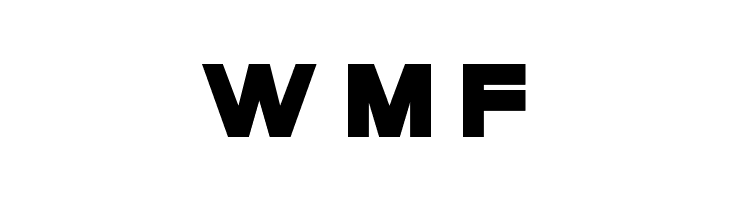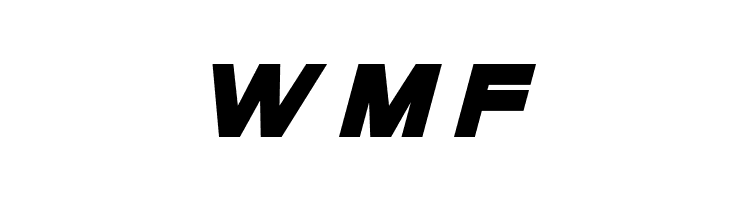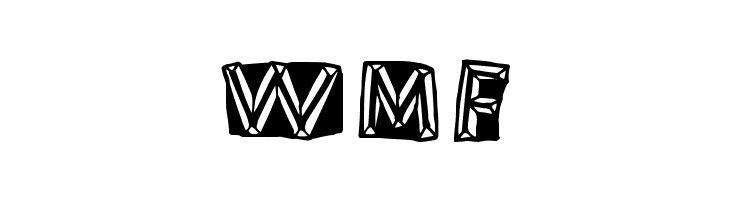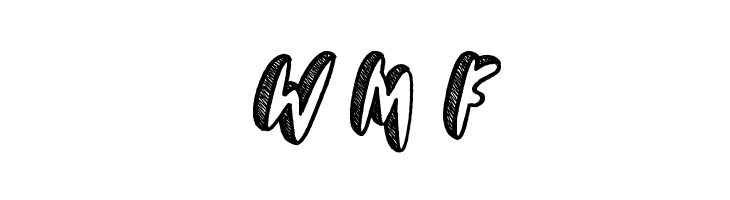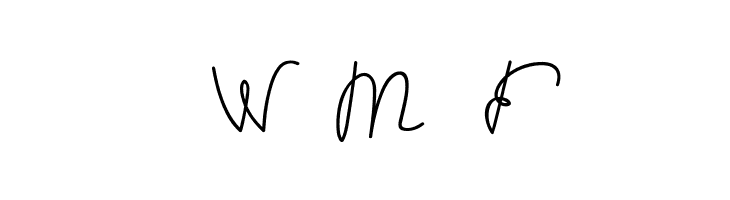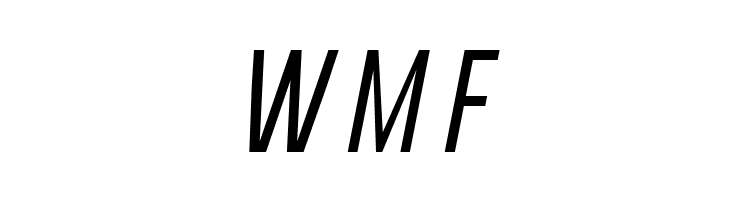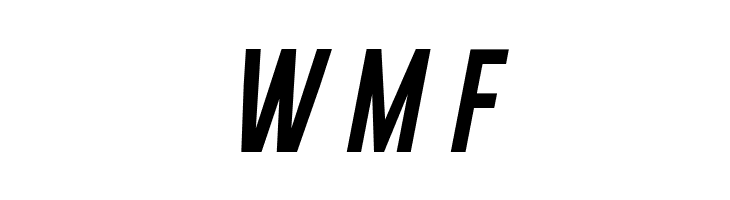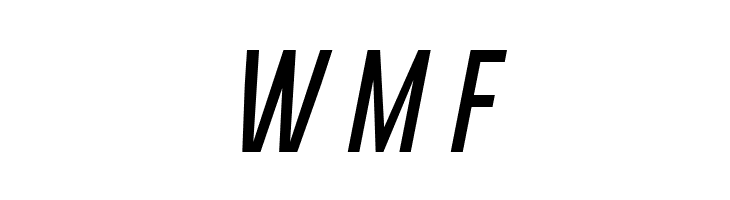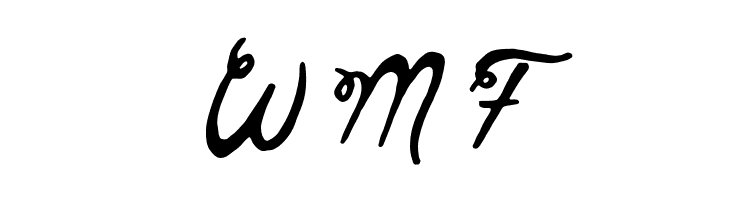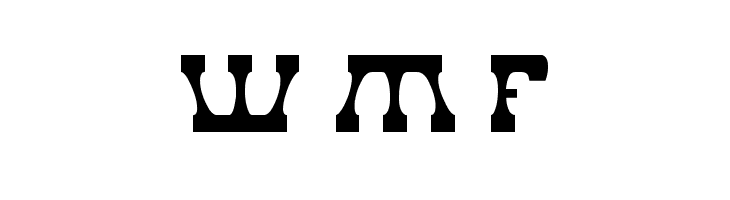
• Gobold High Bold Italic Italic
A bold, italic, and condensed font with a modern and dynamic style.
• Gobold High Italic Italic
A bold, italicized font with a dynamic and modern appearance.
• Gobold High Thin Italic Italic
A sleek, italic font with tall, narrow characters and high contrast, ideal for modern designs.
• Gobold Italic Italic
A bold, italic, and condensed font with a modern and dynamic style.
• Gobold Lowplus Italic Italic
A bold, italicized font with a modern, dynamic style and consistent stroke width.
• Gobold Thin Italic Italic
A sleek, modern, and italicized font with thin, condensed letterforms.
• Gobold Thin Light Italic Italic
A sleek, modern, and italicized font with thin, consistent strokes and a condensed form.
• Gobold Uplow Italic Italic
A bold, italic, and condensed font with a modern and dynamic style.
• God Hates Westboro
Bold, geometric sans-serif with blocky, high-impact uppercase letters.
• God Is Watching Us
A bold, industrial-style font with high contrast and angular edges.
• Godzilla MovieFont
• Gogol, Simone & Monroe
A bold, textured font with a distressed, grunge aesthetic.
• GoGoPosterPunch
A bold, geometric font with strong, impactful letterforms.
• GoGoPosterPunch
A bold, geometric font ideal for impactful headlines and modern designs.
• GoGoPosterPunch Bold
A bold, geometric font with strong, blocky letterforms.
• GoGoPosterPunch Bold Italic
A bold, italic, and geometric typeface with a modern flair.
• GoGoPosterPunch Italic
A bold, italic font with dynamic, angular lines and a modern, energetic style.
• GoGoPosterPunch Italic
Bold, italic font with a dynamic and modern style.
• Going Rogue
A bold, hand-drawn font with a playful, sketch-like texture.
• GoldAndBone
• golden bar
A bold, geometric font with a modern, industrial feel.